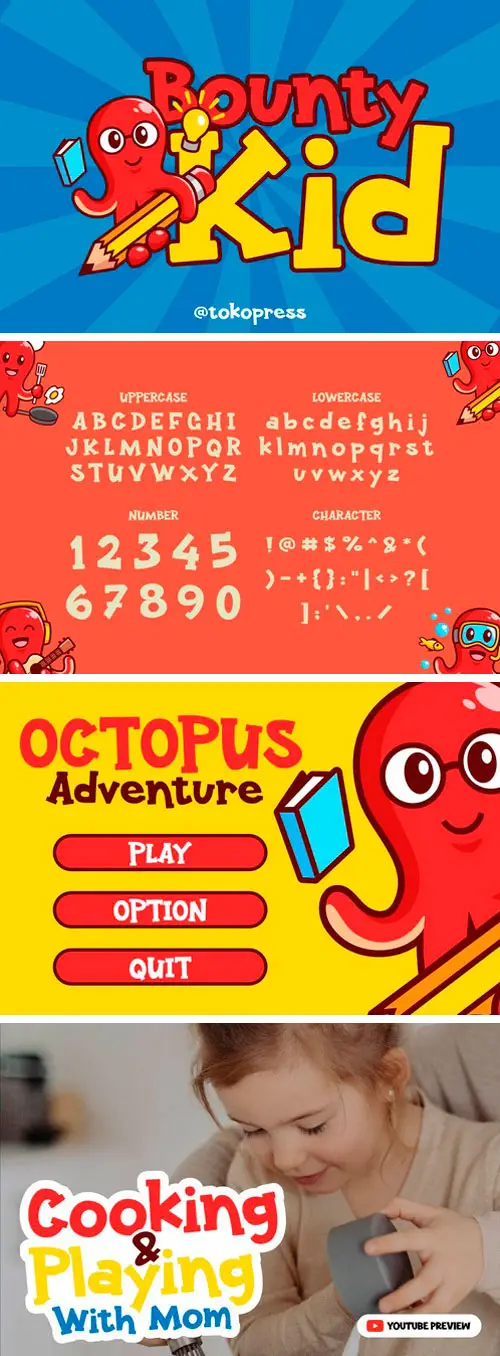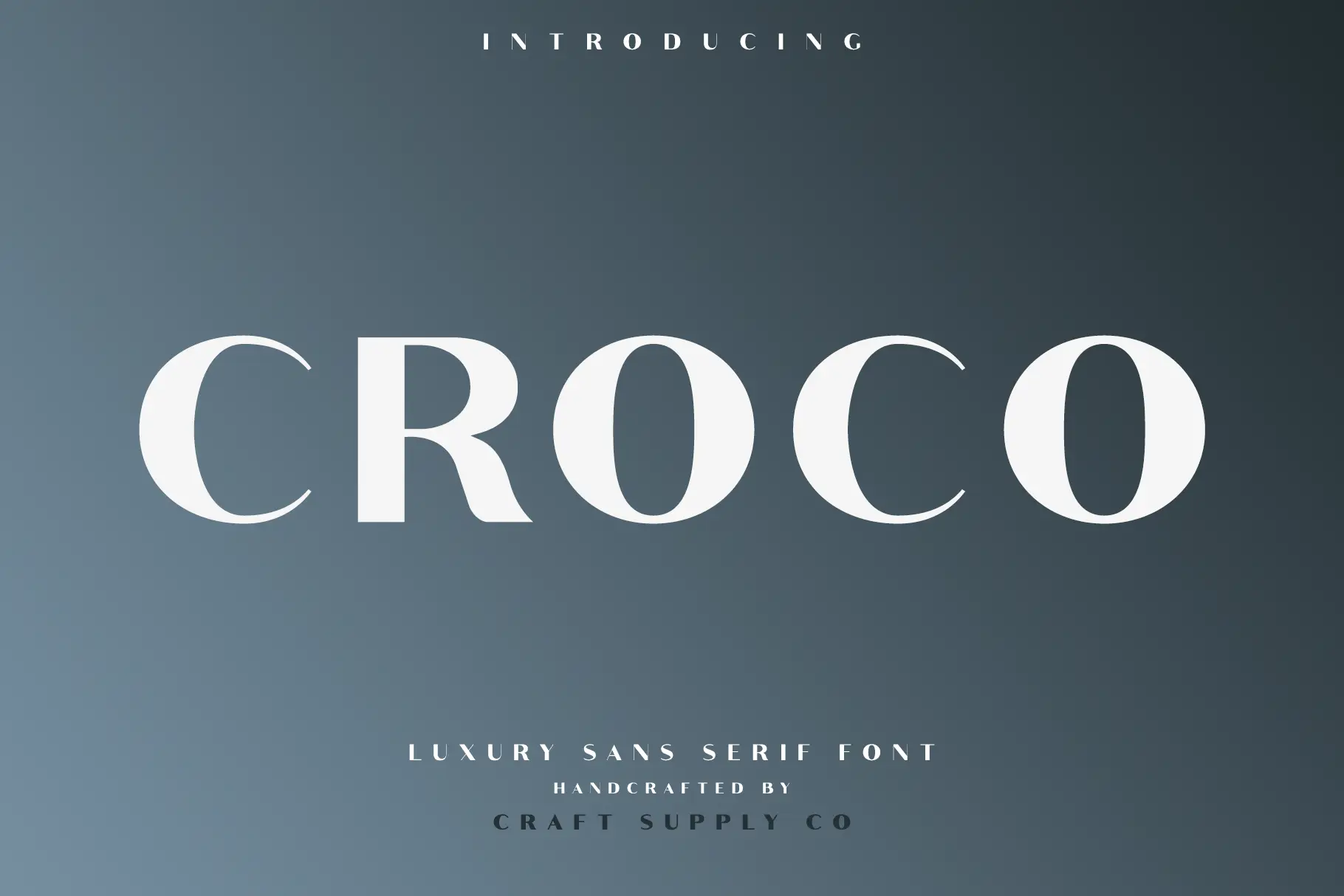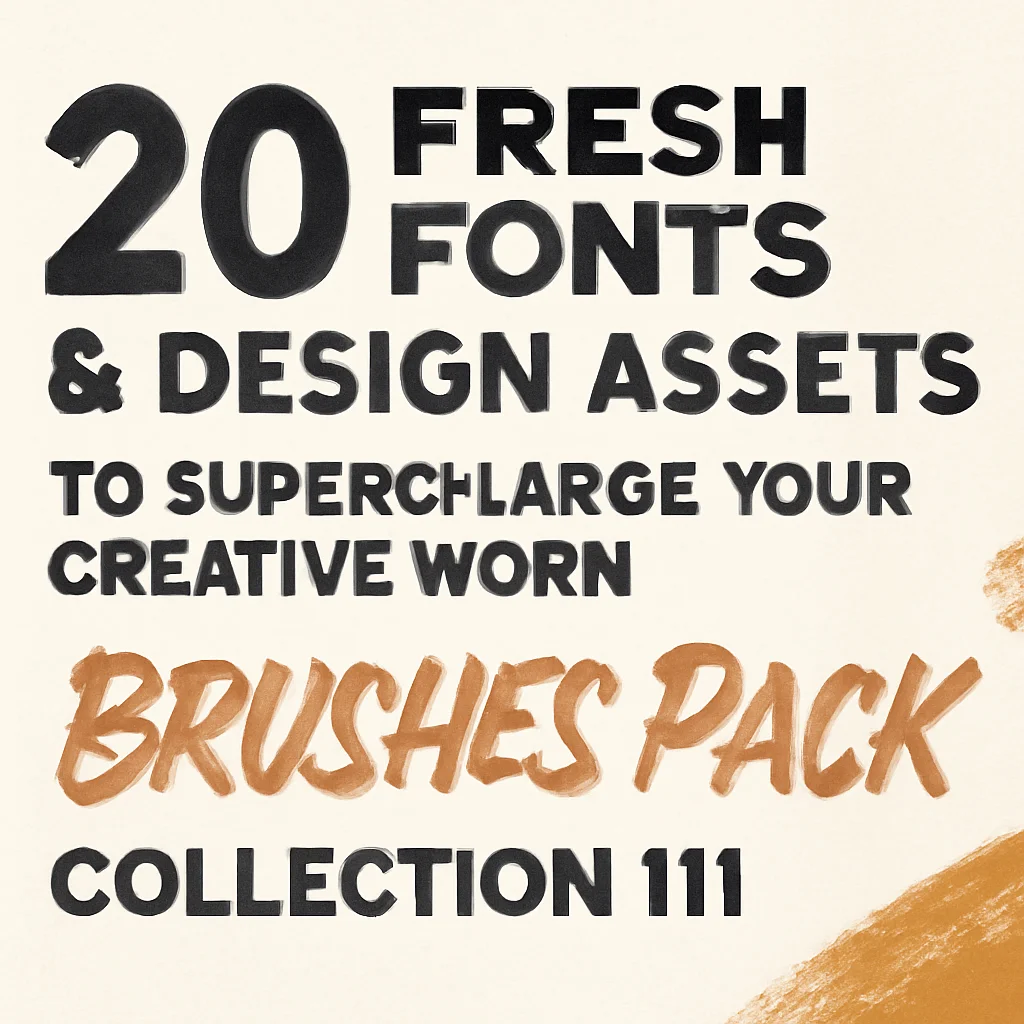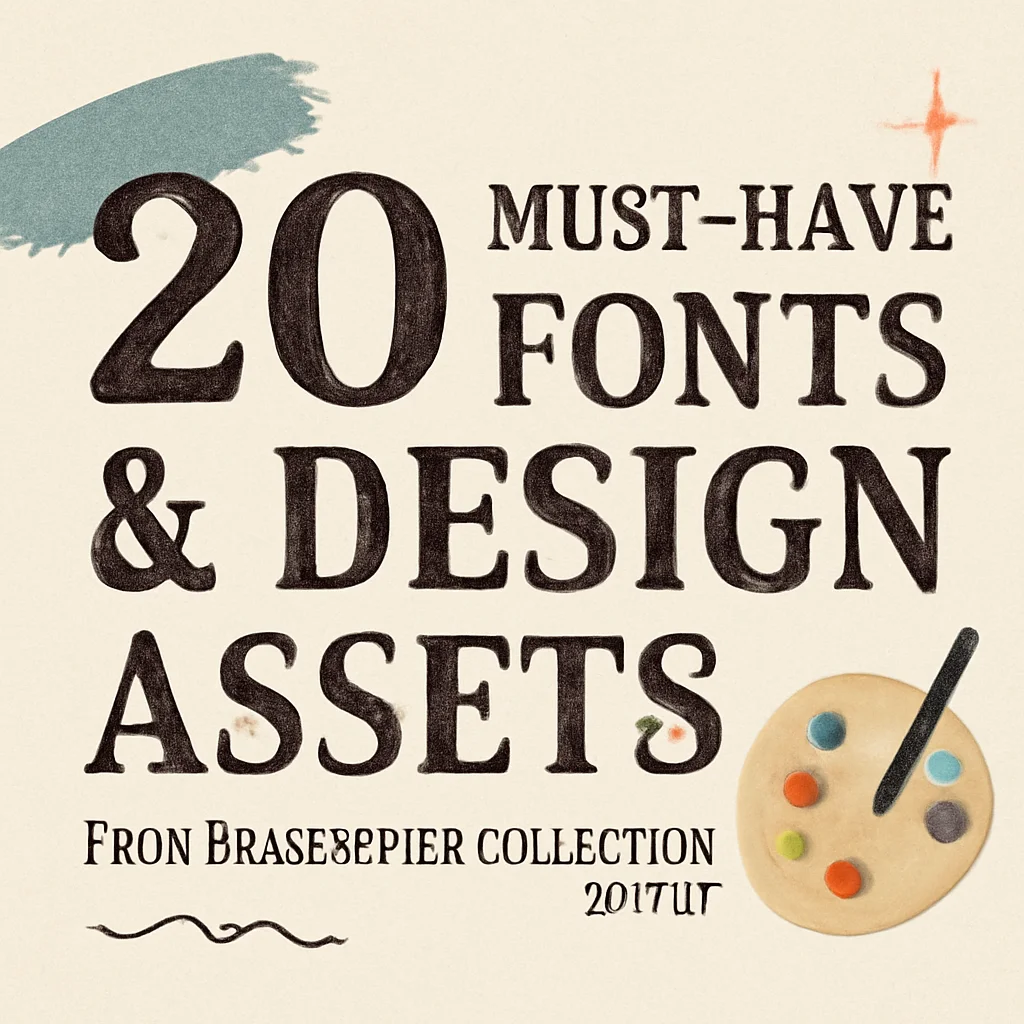
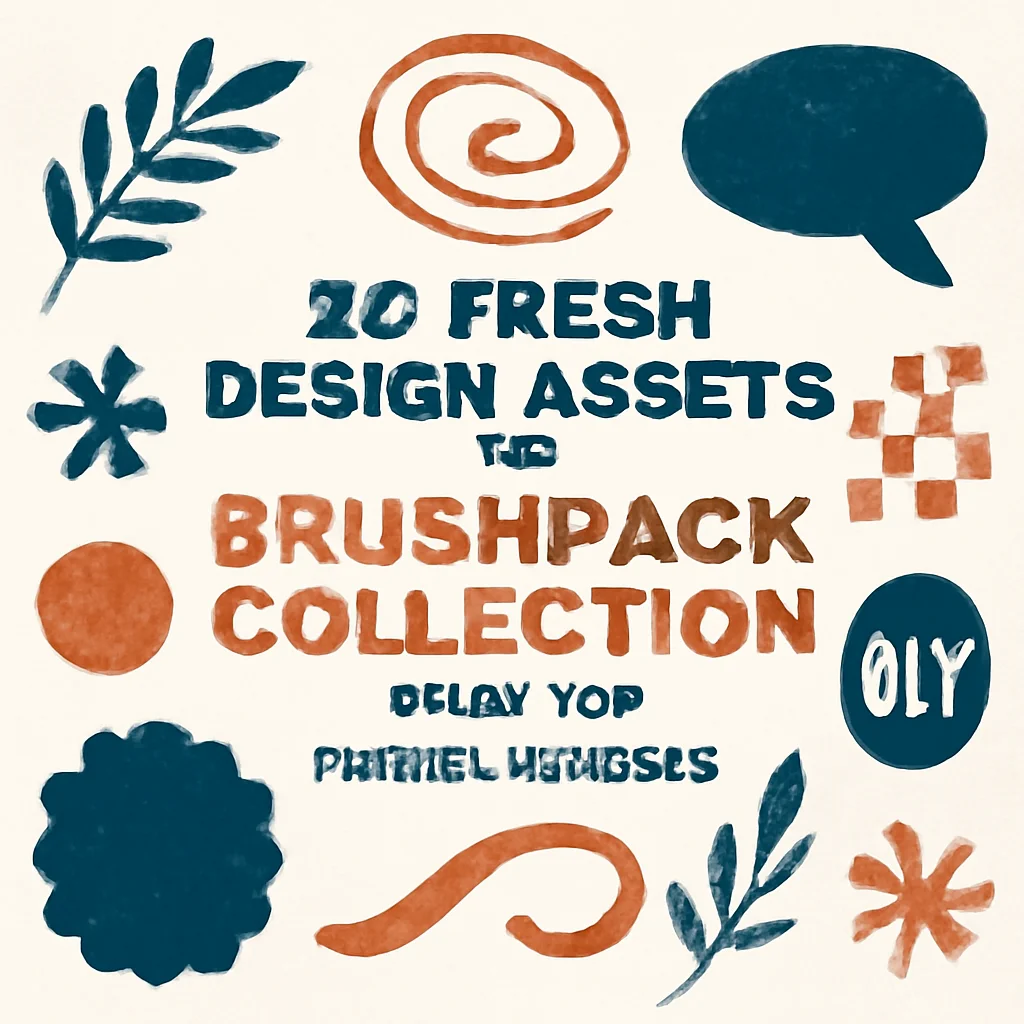
Hey there, creative soul! 🎨 Ready to refresh your design toolkit? The Brushespack Collection Part 107 is here, and it’s bursting with 20 amazing new assets—from elegant calligraphy fonts to playful cartoon typefaces and versatile digital graphics. Whether you’re crafting a brand identity, designing for kids, or just experimenting with new styles, this drop has something special for you. Let’s dive in! 🚀
Why Use These Design Assets?
Great design starts with the right tools, and this collection is like a treasure chest for creatives. These fonts and assets bring versatility, personality, and professional polish to any project. Whether you need a sophisticated script for a wedding invitation or a fun display font for a poster, picking one of these gems guarantees your work stands out. ✨
Top 20 Creative Assets from Brushespack Part 107
Berlin Calligraphy Font
Add instant elegance to your projects with this flowing calligraphy font. It’s perfect for logos, quotes, and anything that needs a sophisticated touch. 🌸
Bounty Kid – Cartoon Font
This playful font brings pure joy to children’s books, birthday invites, or fun branding. Its friendly shapes make everyone smile! 😊
Bonekastar Script Font
A modern script with loads of personality. Great for stylish branding or social media graphics where you want to stand out. ✍️
Boby Marlyn Calligraphy Font
Sophistication meets versatility in this calligraphy font. It’s perfect for branding, invites, and adding that “wow” factor. 💌
Boomer Smooch Display Font
Bold, playful, and full of charm. This display font is a showstopper for headlines and posters. 💥
Billion Cupcake Display Font
Whimsical and sweet like a cupcake! This font is pure fun for party invites, kid’s branding, or cheerful designs. 🧁
Shotingan Cvb3Ly
Fresh and versatile, this digital asset is a must-have for marketers and creators. Perfect for branding or digital art. 🔥
Respano Fu92H
High-res and flexible—this design asset is built for sharp visuals in both print and web projects. 🖥️
Belginda Brush Font
Hand-drawn brush strokes bring an artistic, personal vibe to any design. Love it for packaging or quote art! 🖌️
Ximena Piper – Playful Kiddos Font 9Newn6X
Super cute and rounded—this font was made for kids’ projects, baby showers, and playful designs. 👶
The Stegris Complete Family
An all-in-one family of vector graphics and illustrations. Perfect for scaling up your storytelling or branding game. 📦
Belgan Aesthetic Serif Font
Modern elegance meets classic serif style. Ideal for magazine layouts, luxury branding, or editorial design. 📰
Balita Script Font
A natural, handwritten-style script that feels warm and inviting. Great for personal projects or cozy branding. 🌿
Resfood Koodise 6Dqvu8Y
A flexible digital asset with editable layers. Ideal for graphic designers and content creators who love customization. 🎛️
Back To School Brush Font
Dynamic and playful, this brush font is perfect for educational materials, posters, or anything back-to-school themed! 📚
Letter Head
A polished digital asset for official correspondence and brand identity. Make every letter look professional. 📑
Arinda Script Font
Elegant yet readable—this script font is perfect for modern logos, invitations, and web content. ✨
Croco
High-quality vector graphics that are easy to edit and scale. A great all-rounder for any design project. 🐊
Blusty
Add a unique flair to your projects with this customizable asset. Perfect for web and print promotions. 🌟
Jocker
Creative and professional, this versatile asset is perfect for branding, marketing, and digital platforms. Bring the fun! 🃏
That’s a wrap on Brushespack Collection Part 107! 🎉 From elegant calligraphy to playful kid-friendly fonts and flexible design assets, there’s a tool here for every creative adventure. Don’t just admire them—grab your favorites and start making something amazing today. Happy creating! 💻🎨